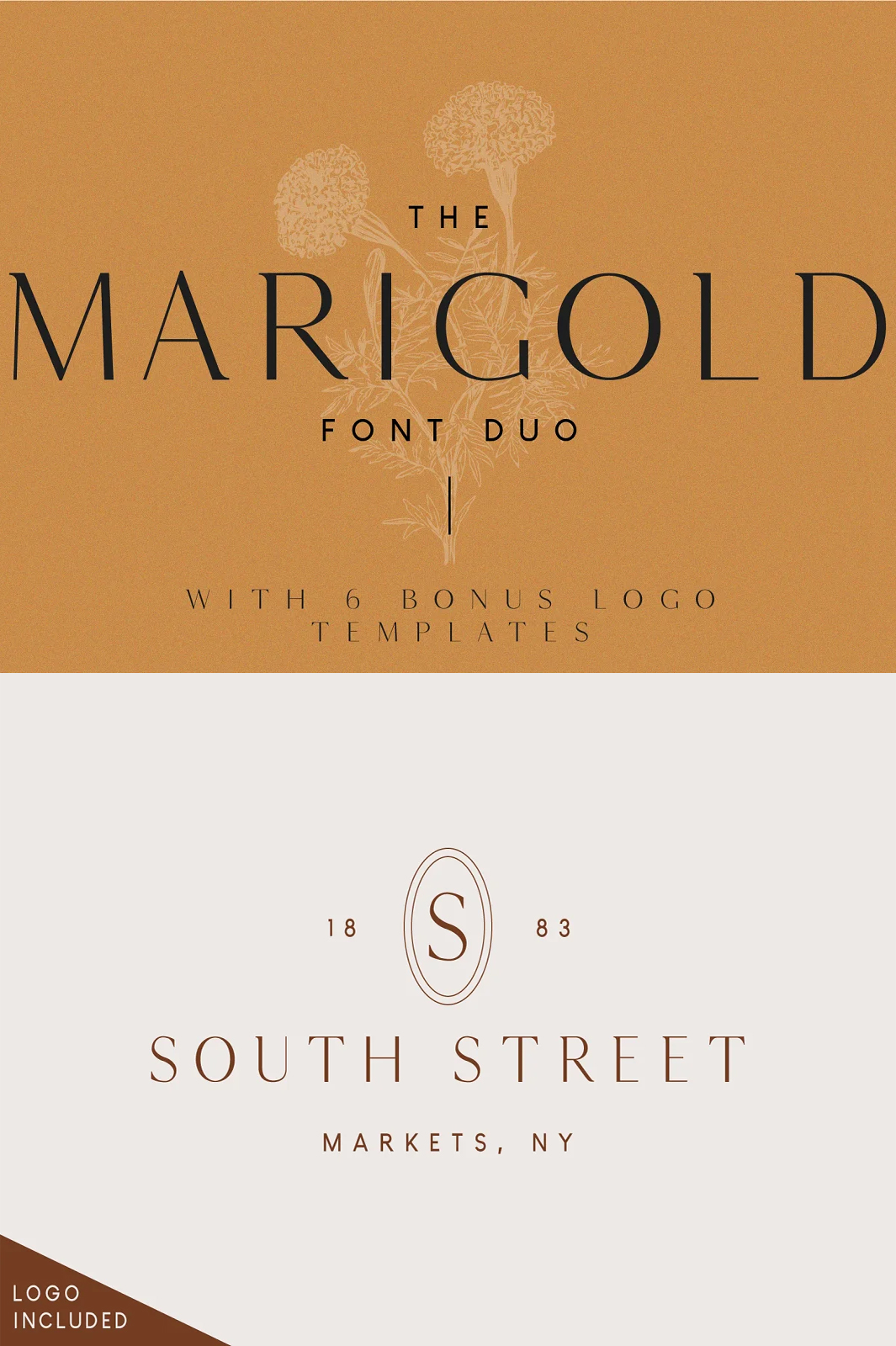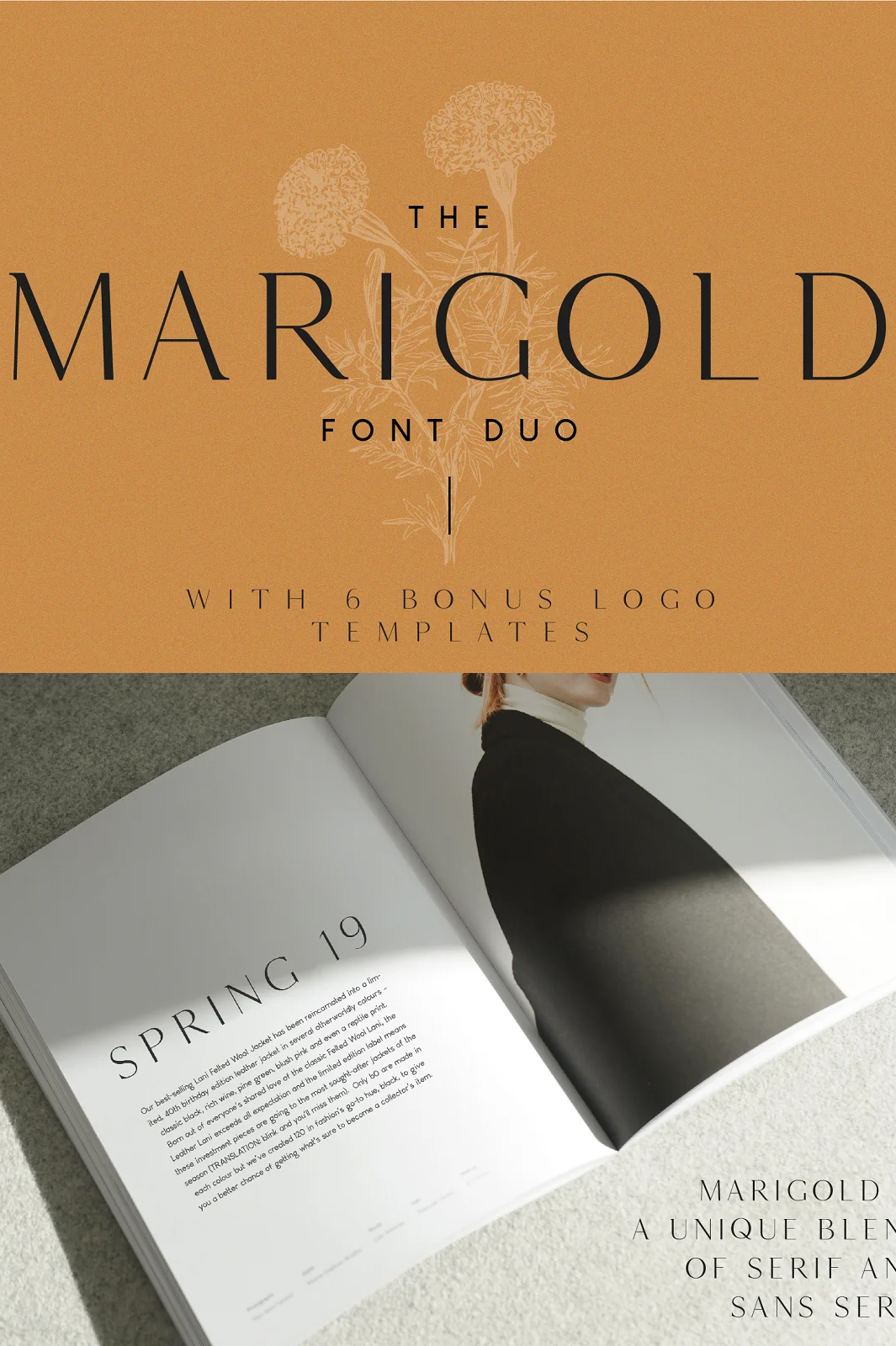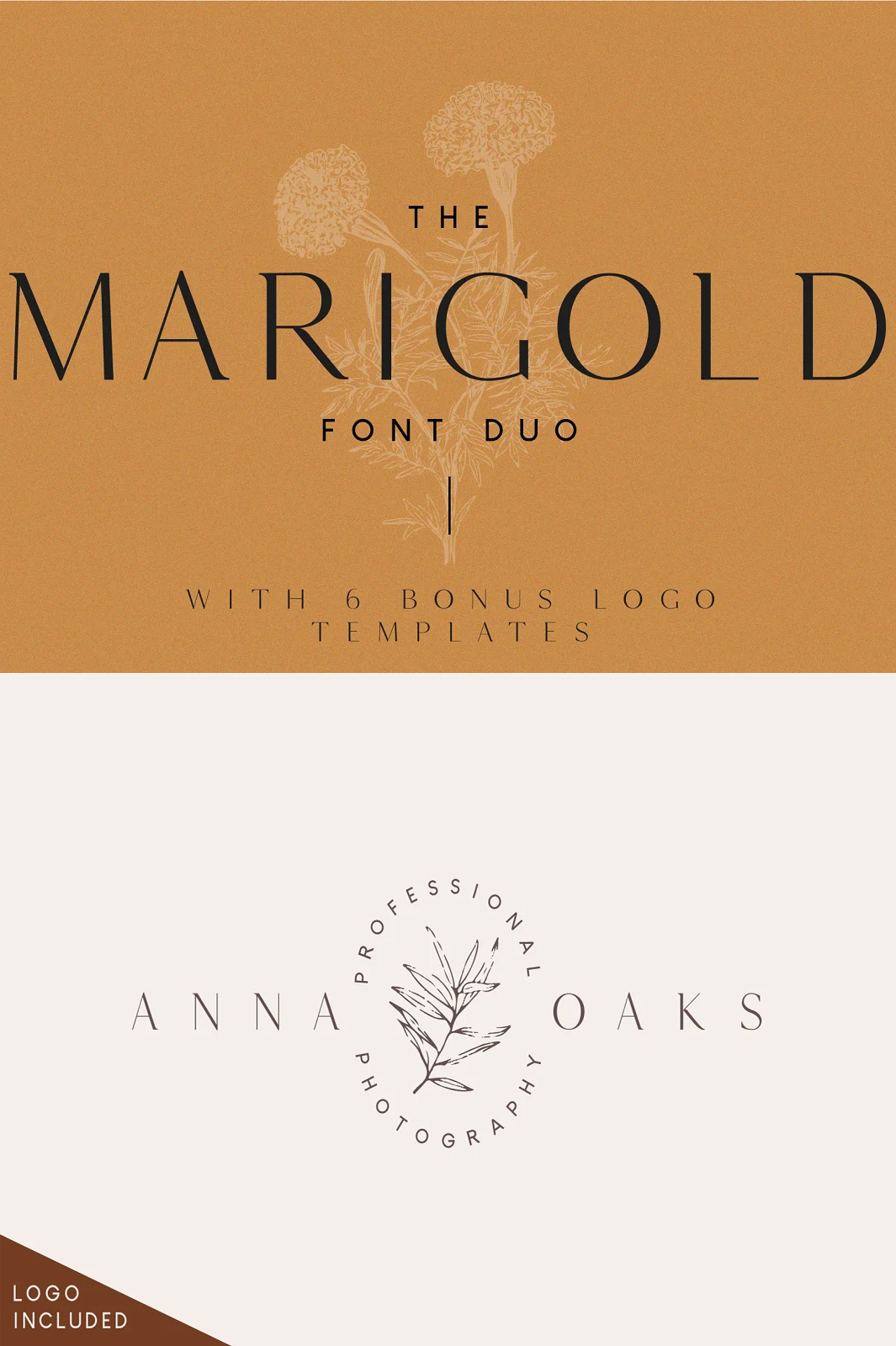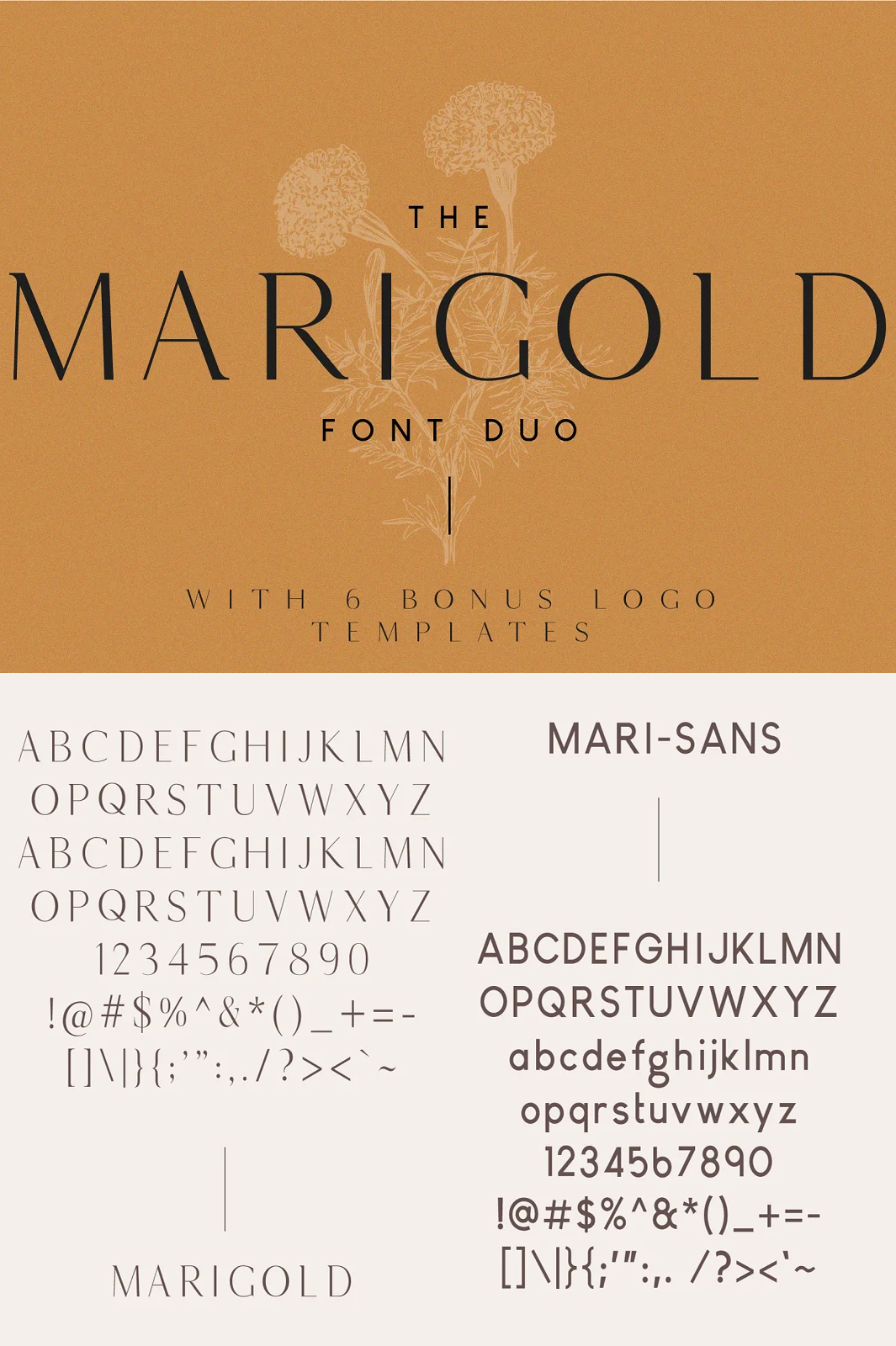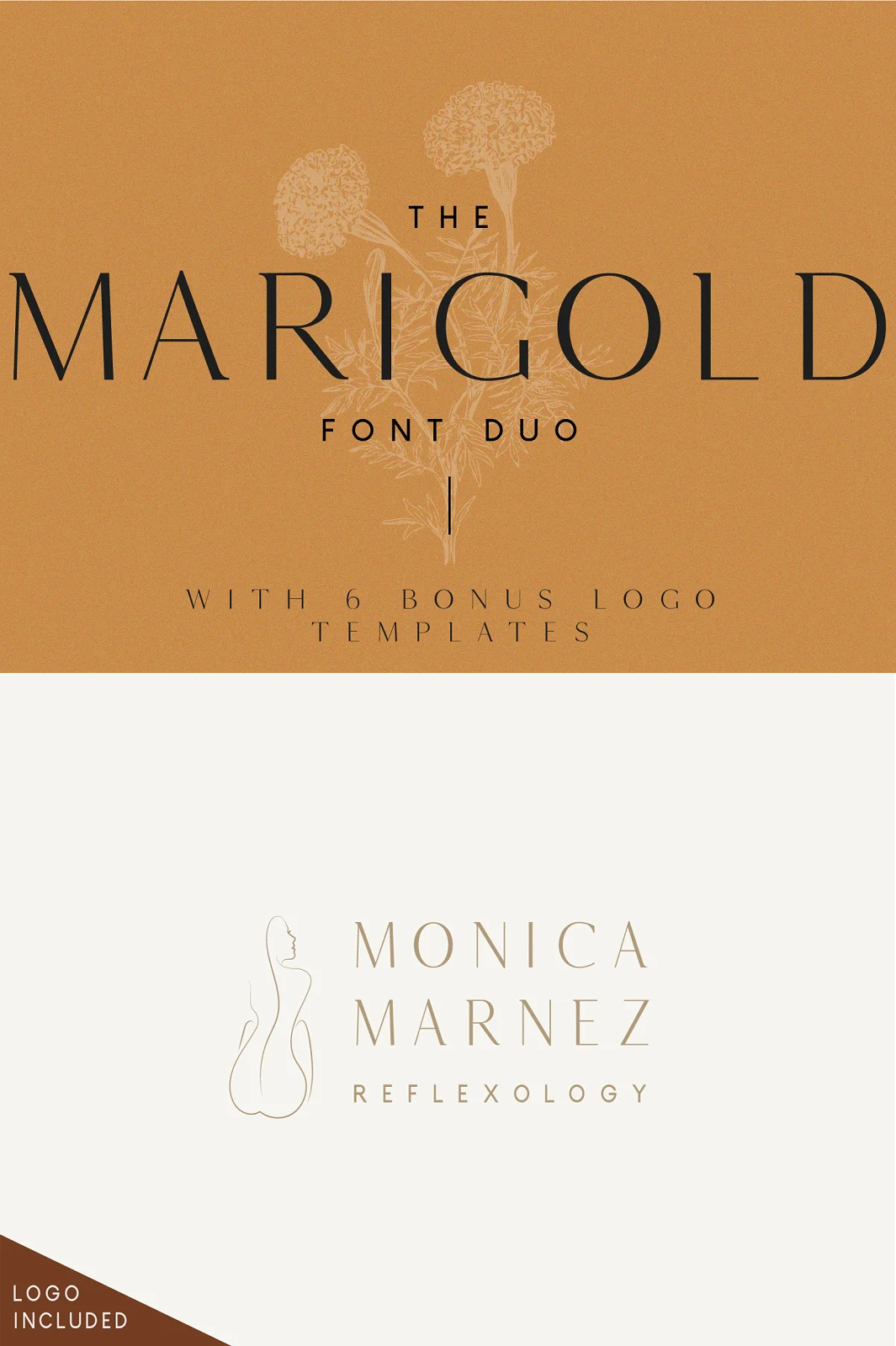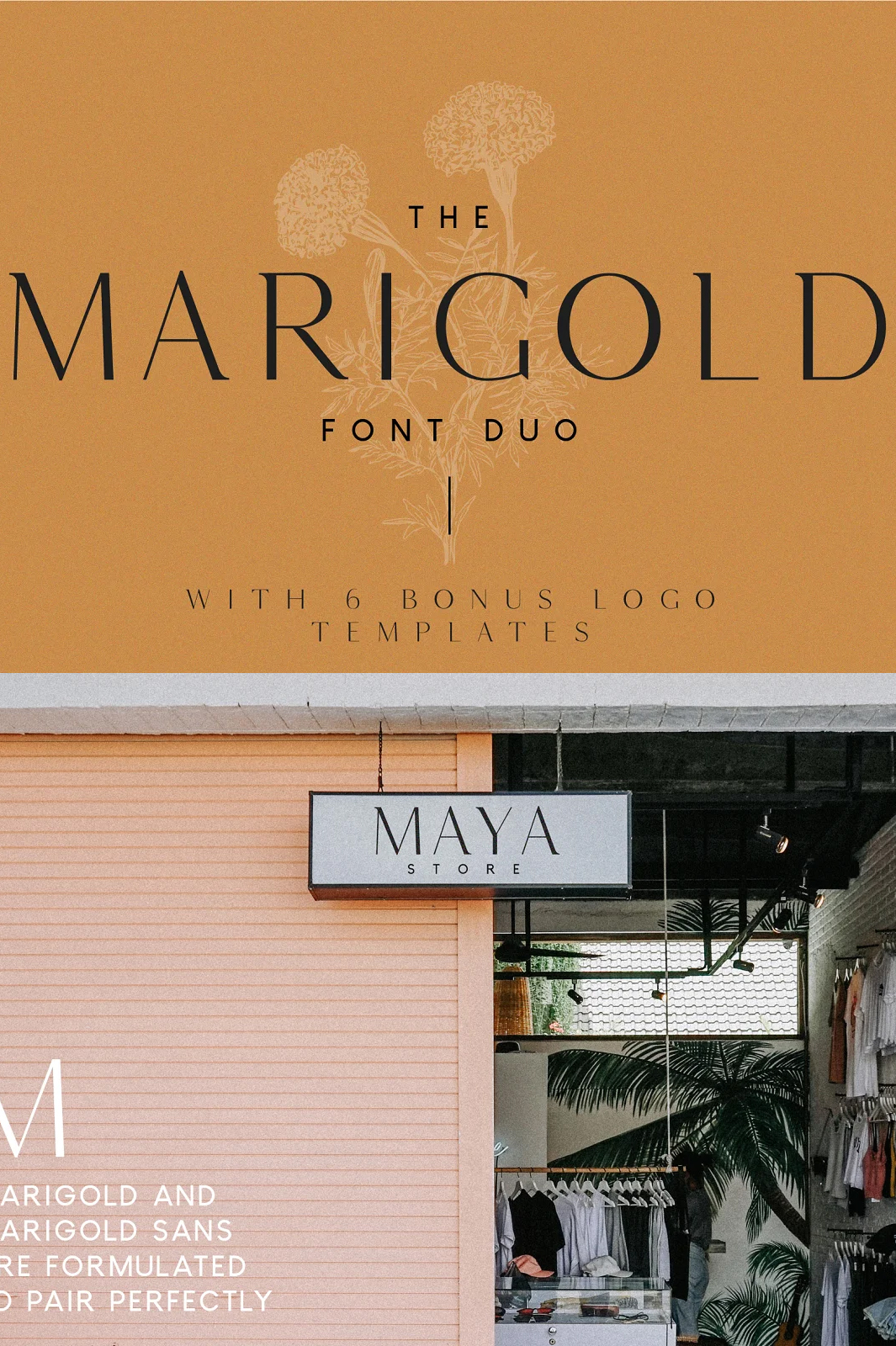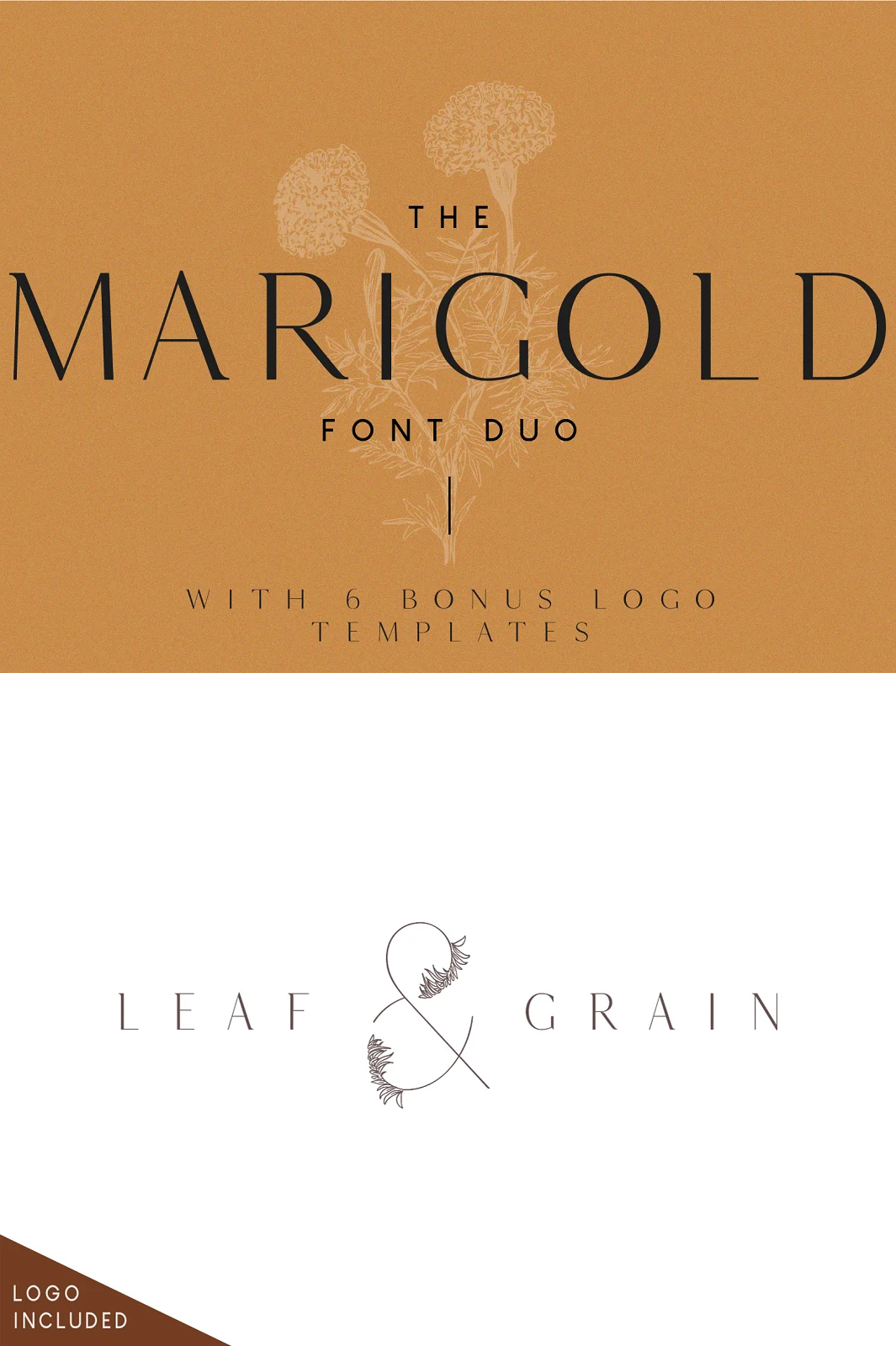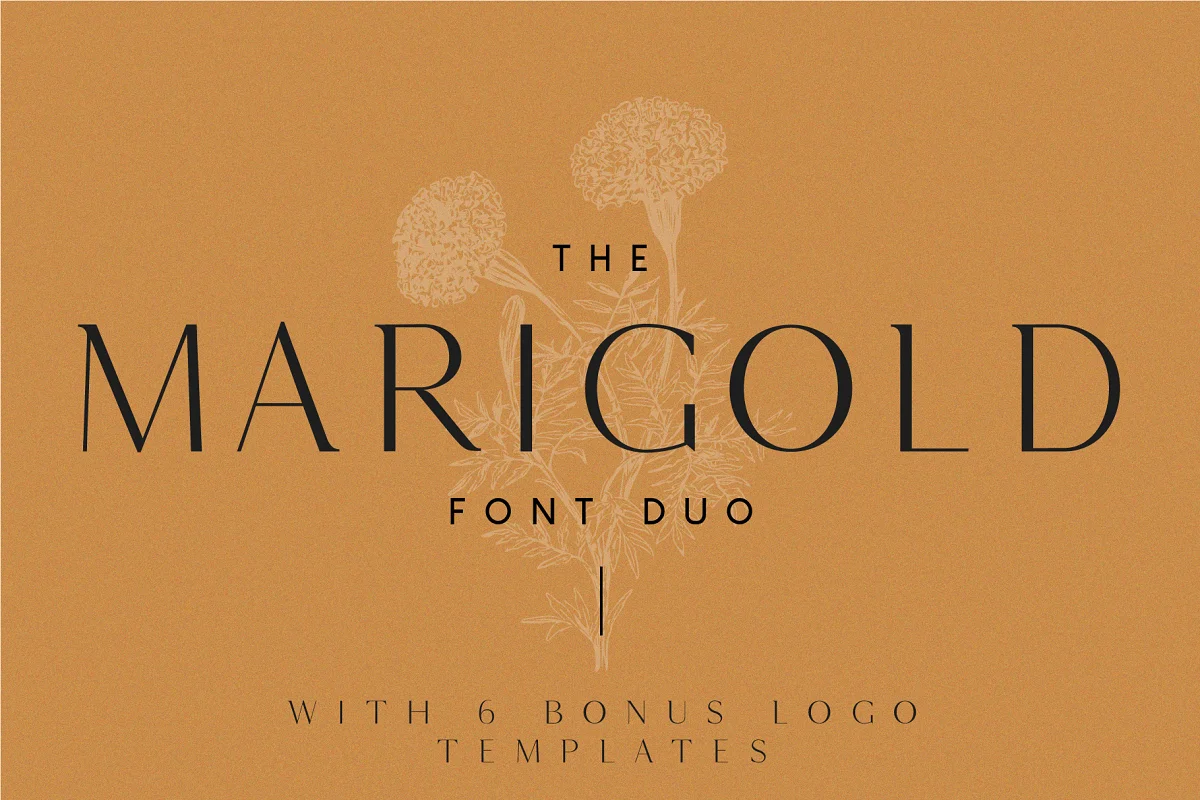
Marigold – Font duo and logo set
Marigold is a unique font that blends serif and sans serif. It is perfectly paired with Marigold Sans, a minimal tagline and body copy font. I have added 6 bonus editable logos created around this font duo.